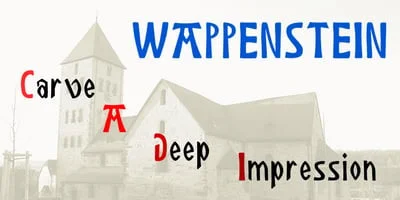
Wappenstein Font
Wappenstein Font is perfect for gothic designs, medieval-themed projects, horror movie posters, metal band logos, fantasy game interfaces, Halloween decorations, architectural signage, and dramatic book covers.
This font is exciting because it combines medieval gothic architecture with modern design sensibilities. Wappenstein Font features bold, angular letterforms with intricate details that evoke the power and mystery of ancient castles and medieval manuscripts, making it ideal for projects that demand a strong, authoritative presence with historical depth.
The Wappenstein Font family includes regular, condensed, expanded, and decorative variants, along with ornamental capitals and special gothic ligatures that enhance its medieval authenticity. Each style maintains the font's commanding presence while offering different levels of detail for various design applications.
Whether you're creating atmospheric game designs, developing brand identity for craft breweries, or designing eye-catching event posters, Wappenstein Font delivers exceptional impact and character. Its distinctive gothic style makes it an excellent choice for designers seeking to add medieval grandeur and dramatic flair to their projects. The font's versatility extends from digital gaming interfaces to traditional print materials, ensuring consistent performance across all mediums. With its meticulously crafted letterforms and authentic gothic elements, this typeface provides professional results that command attention and establish powerful brand presence with its unmistakable medieval character and architectural inspiration.